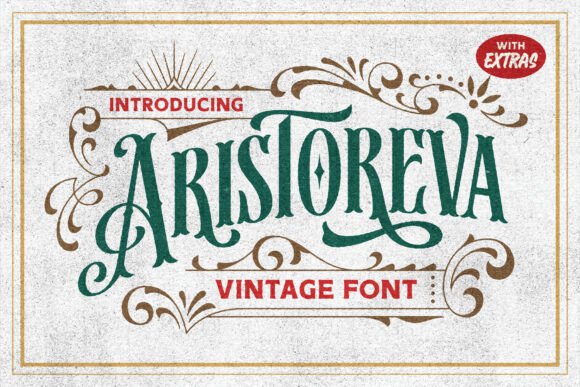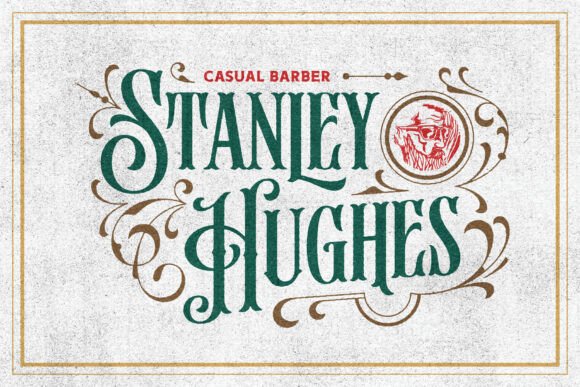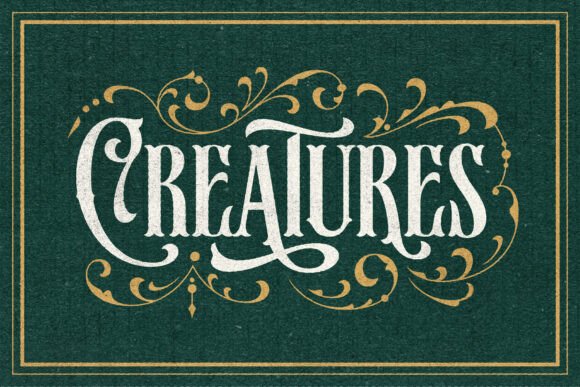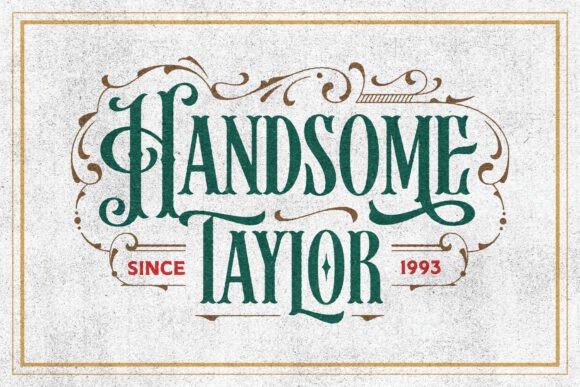
Aristoreva Font: Elegant Vintage Typography for Logos & Branding
About the Aristoreva Font
We are excited to introduce Aristoreva Font, a must-have typeface for any serious designer. Introducing Aristoreva, a decorative vintage font inspired by the timeless charm of Victorian typography and Art Nouveau from the 19th century.
Collected from many references such as vintage signage, logos, badges, and old-fashioned graphics, Aristoreva has been meticulously crafted with medium-detailed ornaments and additional swashes, making it effortless to create elegant vintage typography.
This condensed font is designed for large displays, ensuring it stands out beautifully in any project. Paired with bonus ornaments, Aristoreva is perfect for posters, labels, logos, signboards, t-shirts, book covers, decorations, merchandise, and more!
Aristoreva Font Usage Examples
Aristoreva Font Example